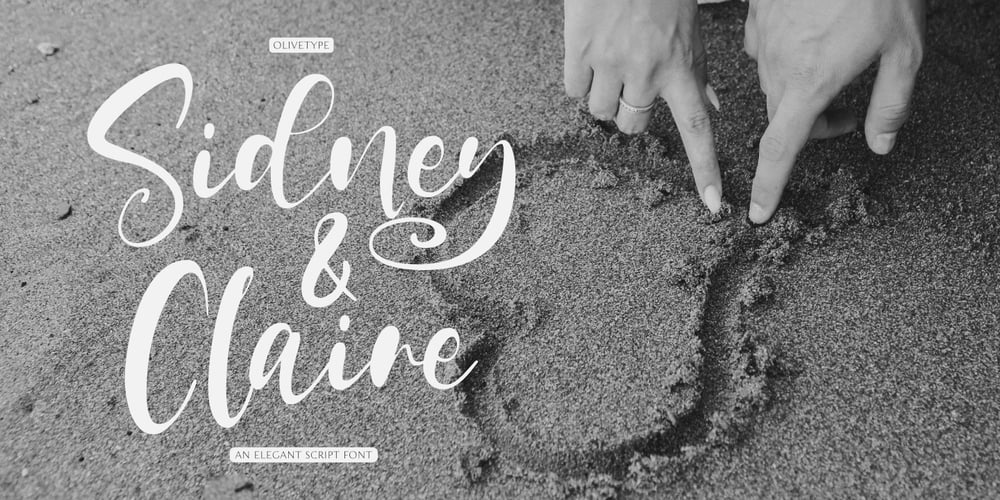
Sidney & Claire Font Family was designed by Nurul Hidayani and published by Olivetype. Sidney & Claire contains 1 styles and family package options. Sidney & Claire is a stylish and elegant script font. Its bold and smooth style makes this font incredibly versatile, fitting a wide variety of creative ideas.So what’s included: Sidney & Claire (OTF) Basic Latin A-Z, a-z, numbers, symbols, and punctuations Sidney & Claire is supporting 66 Languages, ranging from Afrikaans Albanian Catalan Danish to Dutch English Spanish Swedish Zulu. Accented Characters : ÀÁÂÃÄÅÆÇÈÉÊËÌÍÎÏÑÒÓÔÕÖØŒŠÙÚÛÜŸÝŽàáâãäåæçèéêëìíîïñòóôõöøœšùúûüýÿžß Thank you